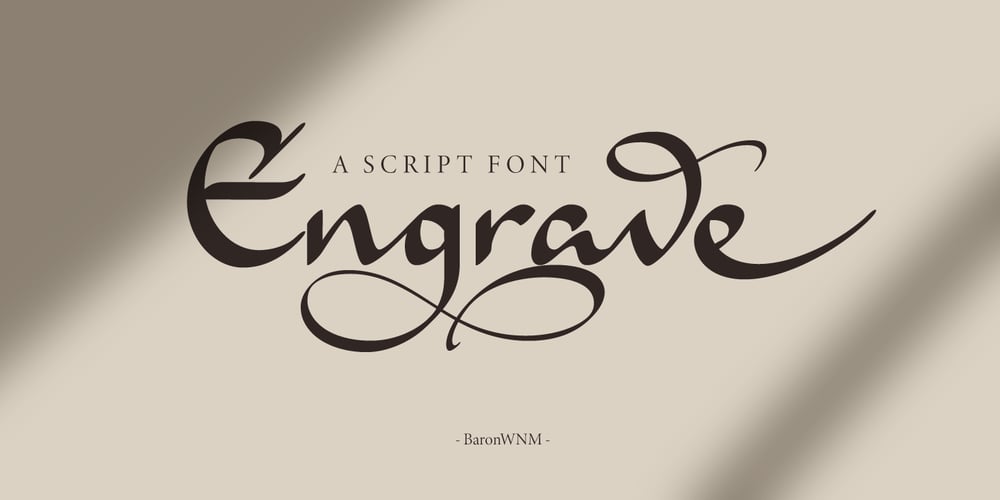
Engrave Font Family was designed by Rahmad Mulyadi and published by BaronWNM. Engrave contains 1 styles and family package options. Engrave is a vintage-style scrips font. This font is an elegant font, and has a luxurious impression with sweet curves on the alternate letters. “Engrave” is perfect for branding luxury fashion products, jewelry, and is also great for use as a lettering in logos and mockups. The use of this font is also not limited to that, but can also be used for writing book covers, movies, posters, taglines, etc. “Engrave” also has ligatures and alternatives that give each lowercase style a choice of styles and add a luxurious feel to this font.